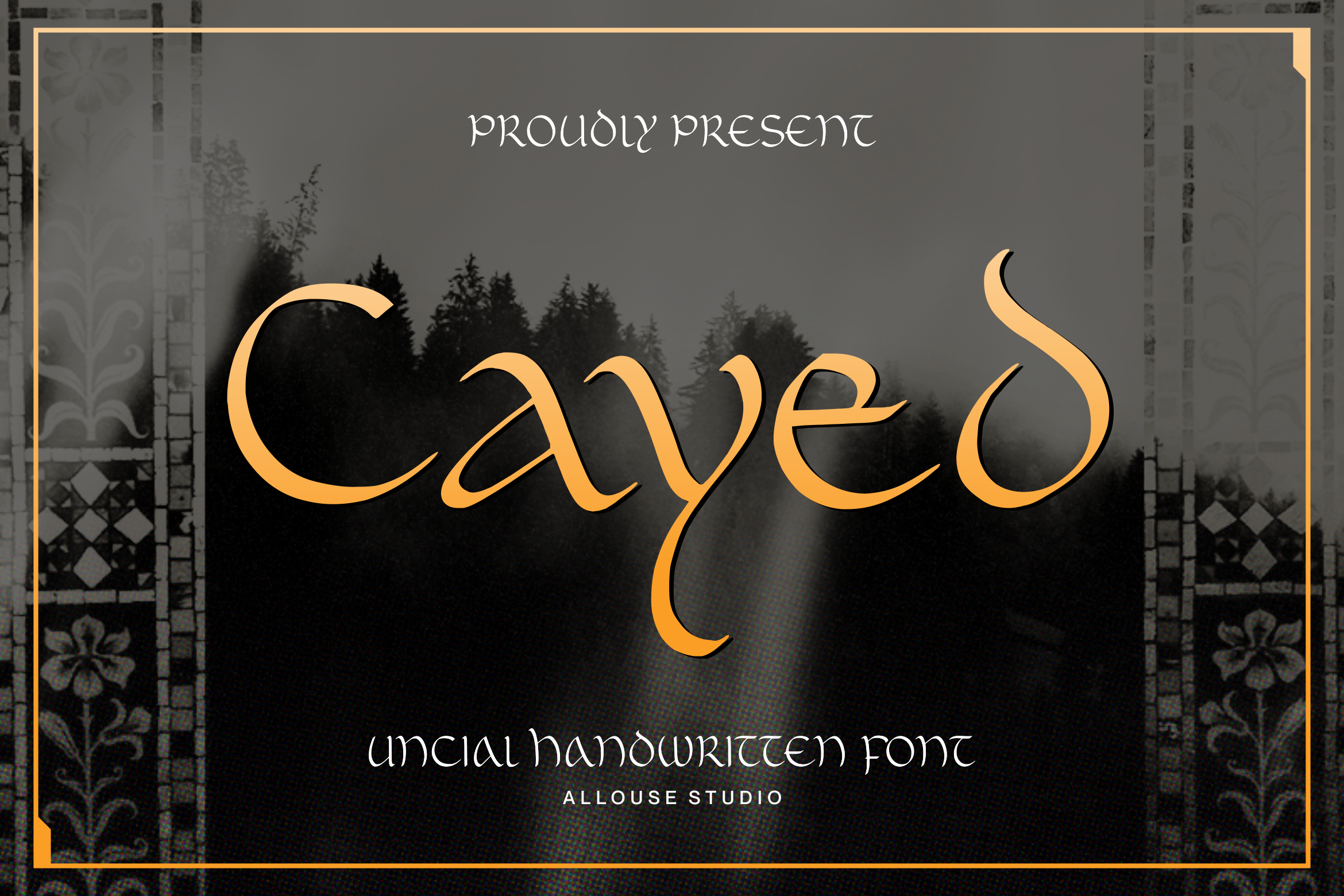
Cayed Font
Introducing by Allouse.Studio
Proudly Present, Cayed.
Cayed is a Uncial Handwritten Font.
Cayed is perfect for product packaging, branding project, megazine, social media, wedding, or just used to express words above the background.